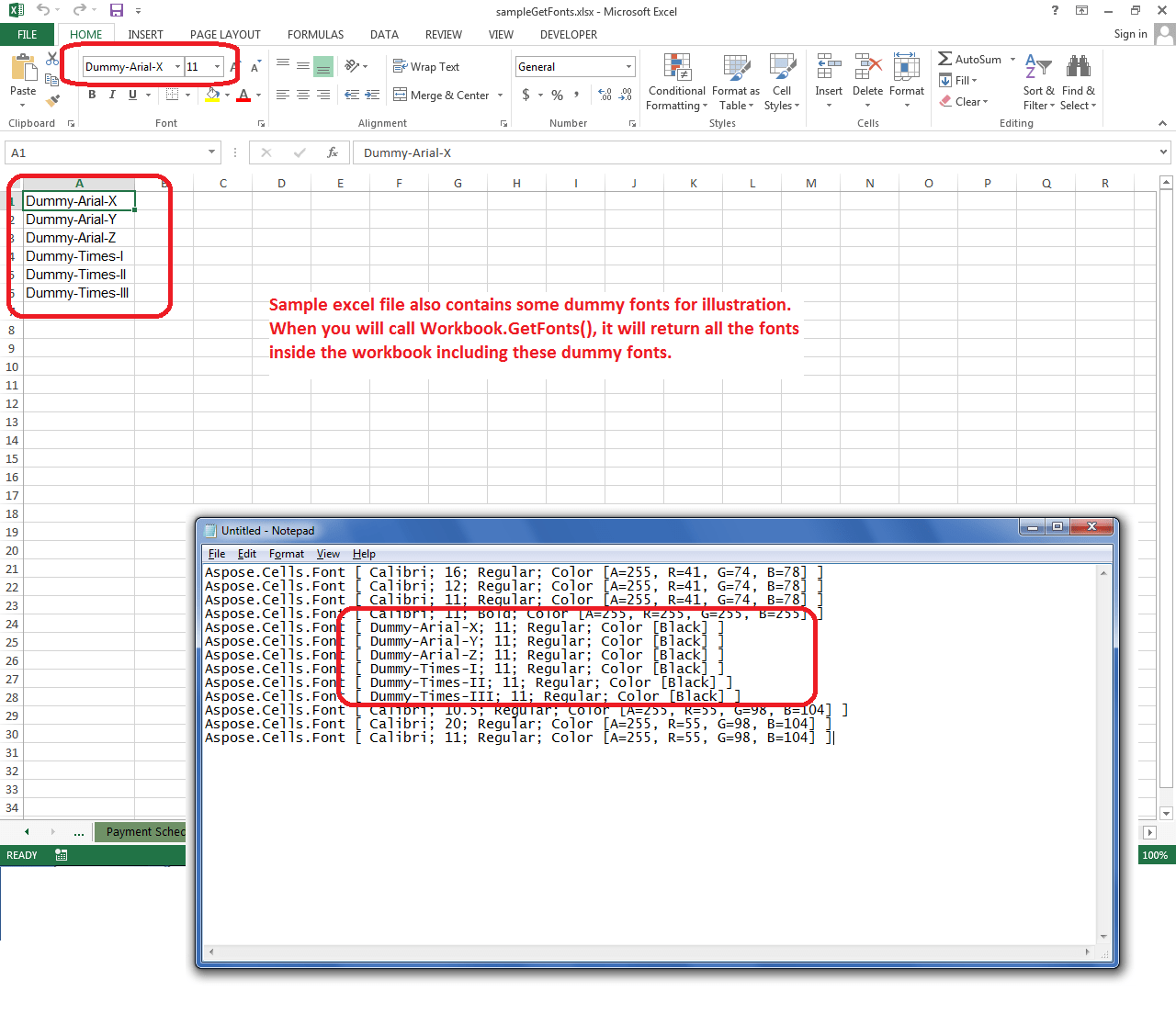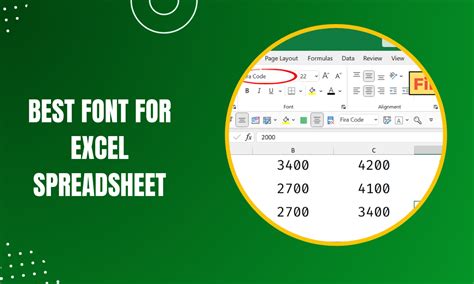
Best Font For Spreadsheets. Arial, one of the best fonts for microsoft excel, offers simplicity and readability. Web maintain professionalism and consistency in your spreadsheet by using commonly used professional fonts such as calibri, arial, or.
Web if you are wondering which fonts would be best for spreadsheets, then here is a list of them: Web the top 5 font styles for excel include calibri, arial, times new roman, verdana, and helvetica. What are the 4 major font. Web maintain professionalism and consistency in your spreadsheet by using commonly used professional fonts such as calibri, arial, or. Arial, one of the best fonts for microsoft excel, offers simplicity and readability. Modified 1 year, 3 months ago.
Web if you are wondering which fonts would be best for spreadsheets, then here is a list of them: Web maintain professionalism and consistency in your spreadsheet by using commonly used professional fonts such as calibri, arial, or. Web the top 5 font styles for excel include calibri, arial, times new roman, verdana, and helvetica. Web if you are wondering which fonts would be best for spreadsheets, then here is a list of them: Arial, one of the best fonts for microsoft excel, offers simplicity and readability. What are the 4 major font. Modified 1 year, 3 months ago.